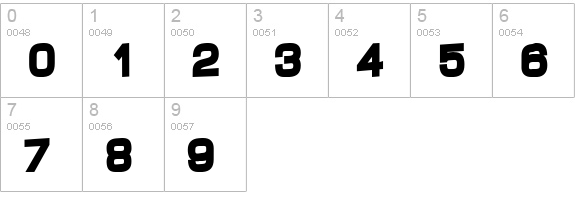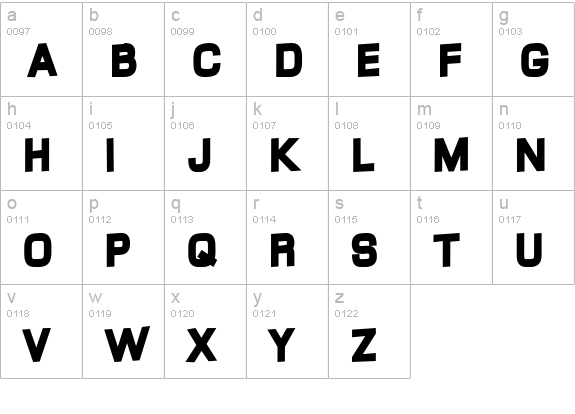
Nineteen Font Details
Nineteen font is a modern and stylish typeface that exudes sophistication and elegance. With its sleek lines and contemporary design, this font is perfect for adding a touch of class to any project. Its clean and sharp appearance makes it ideal for a wide range of applications, from branding to editorial design. The best part about Nineteen font is that it is completely free to download at FontsMarket.com. This means you can easily access this stunning font without any cost, making it a valuable addition to your font collection. Whether you're working on a professional project or a personal creative endeavor, Nineteen font is sure to elevate your design with its timeless appeal. Don't miss out on the opportunity to enhance your work with the exquisite Nineteen font. Download it for free today at FontsMarket.com and unlock the endless possibilities it offers for your design projects.